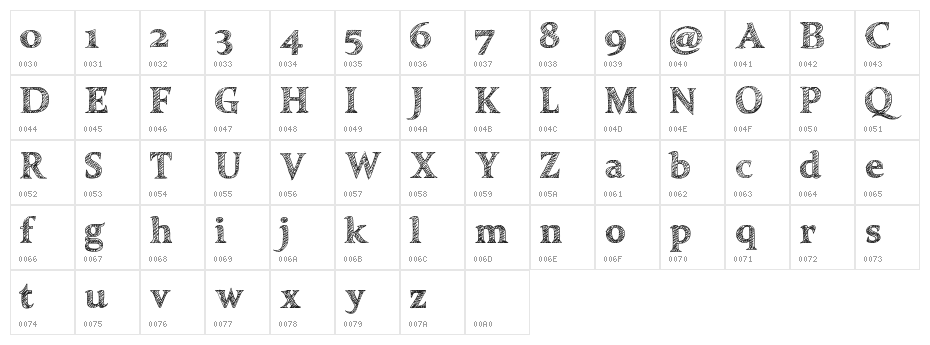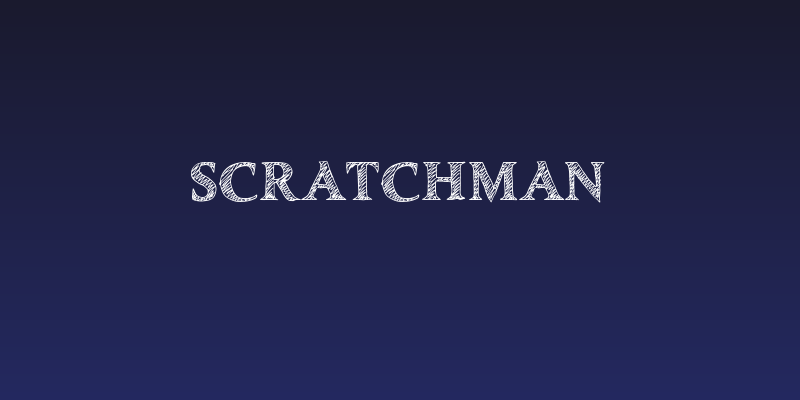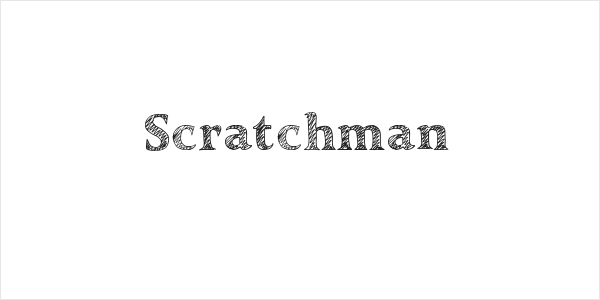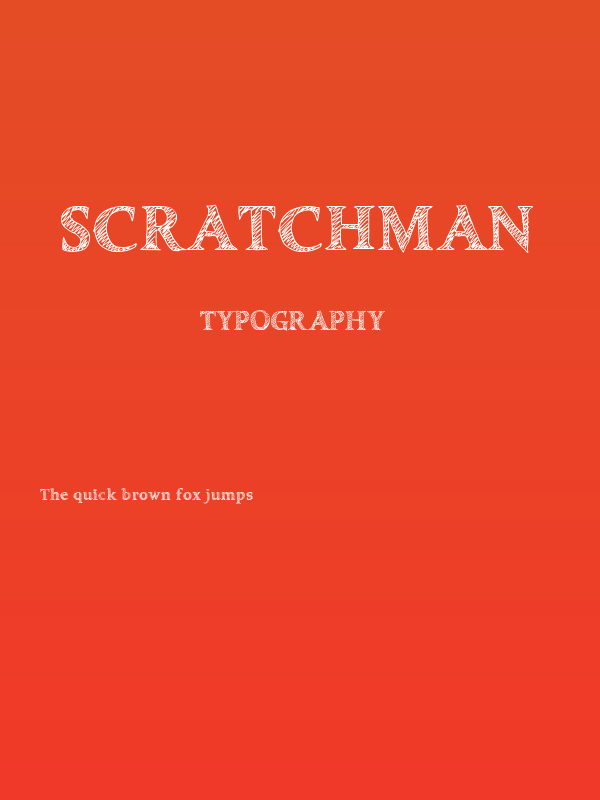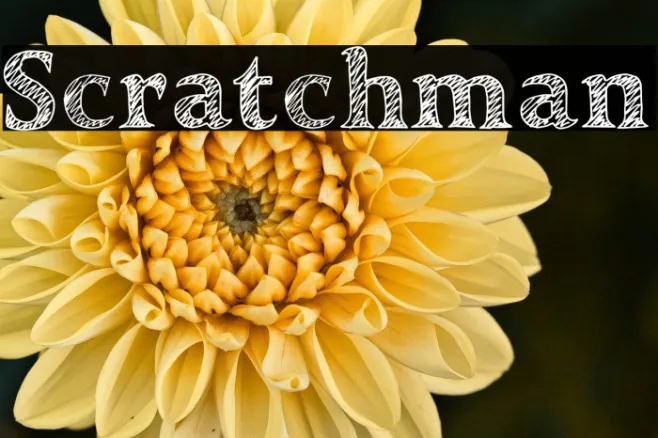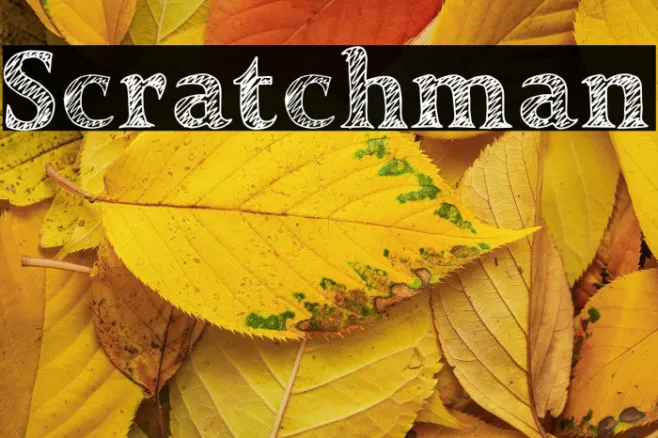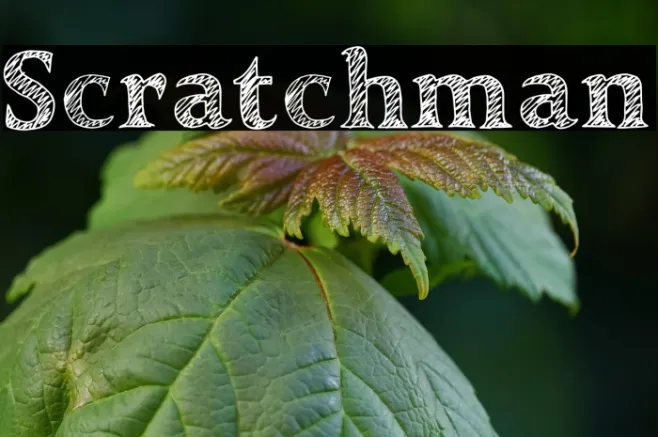
Scratchman Font
Scratchman Description
This font features a distinctive hand-drawn, sketch-like appearance with a textured, crosshatched fill. The letters are bold and have a playful, artistic quality, making them stand out with a unique charm. The uppercase and lowercase letters maintain a consistent style, with slightly exaggerated serifs that add to the decorative nature of the font. The numerals and special characters follow the same design principles, ensuring a cohesive look across all characters. This font is ideal for projects that require a creative and informal touch, such as children's book covers, posters, or artistic branding materials.
| Proposed Projects | Ideal for children's books, creative posters, and artistic branding. |